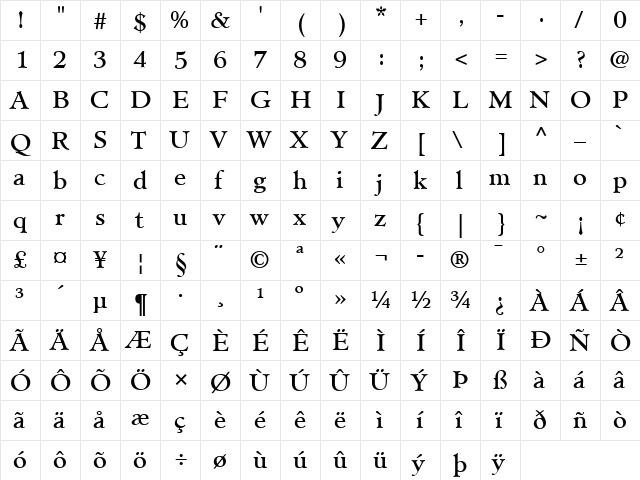
Minister LT Book Regular
Design Context for Minister LT Book Typeface
Minister LT Book offers clean, dependable letterforms without strong stylistic allegiance, making it a practical choice for designers who need flexibility. Its slender proportions lend an understated elegance to any composition.